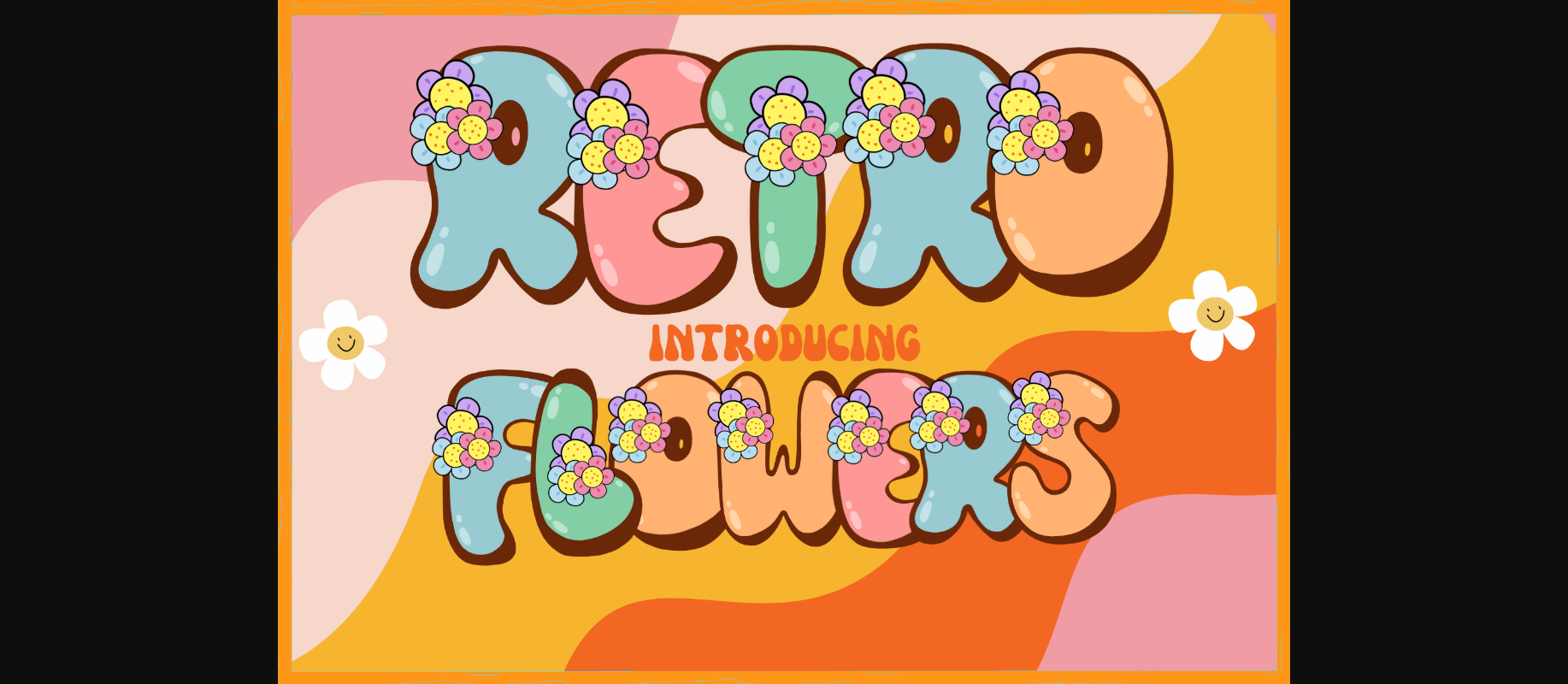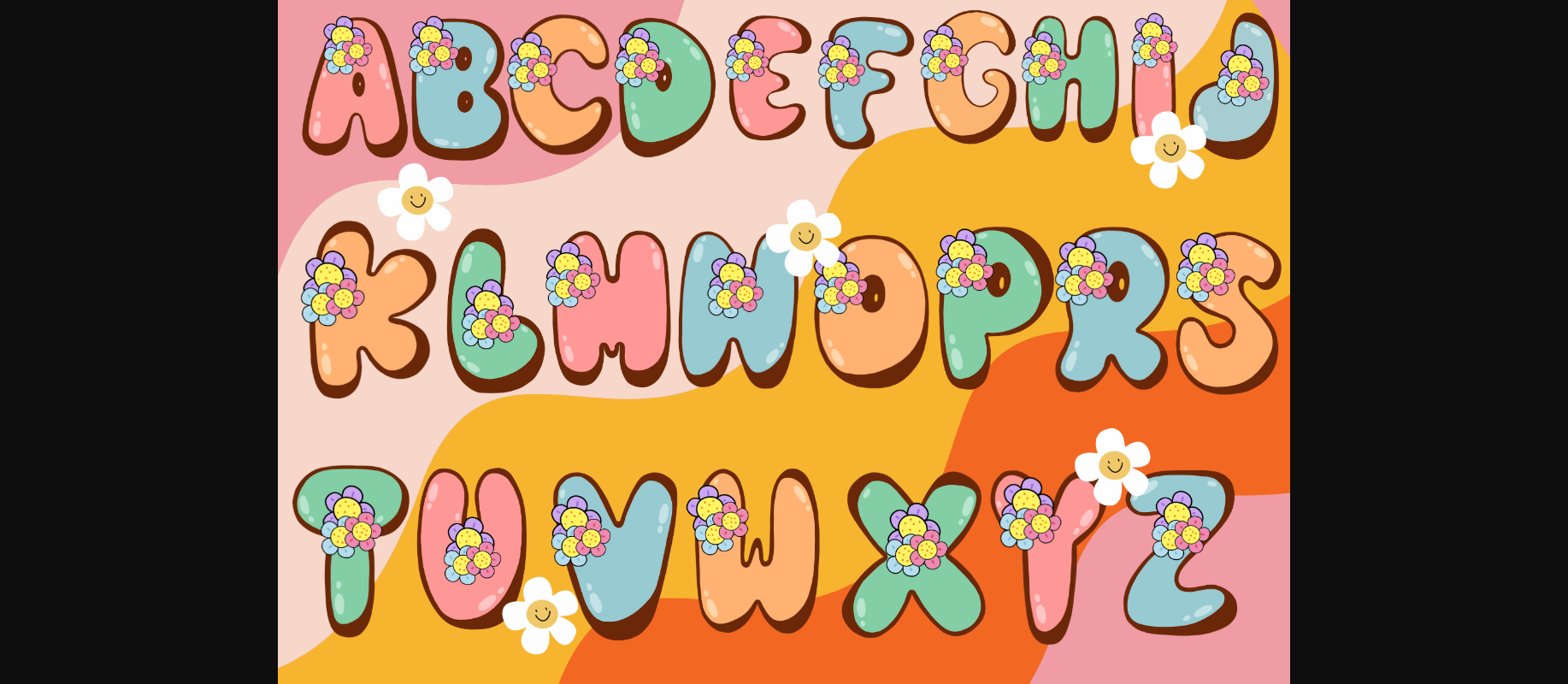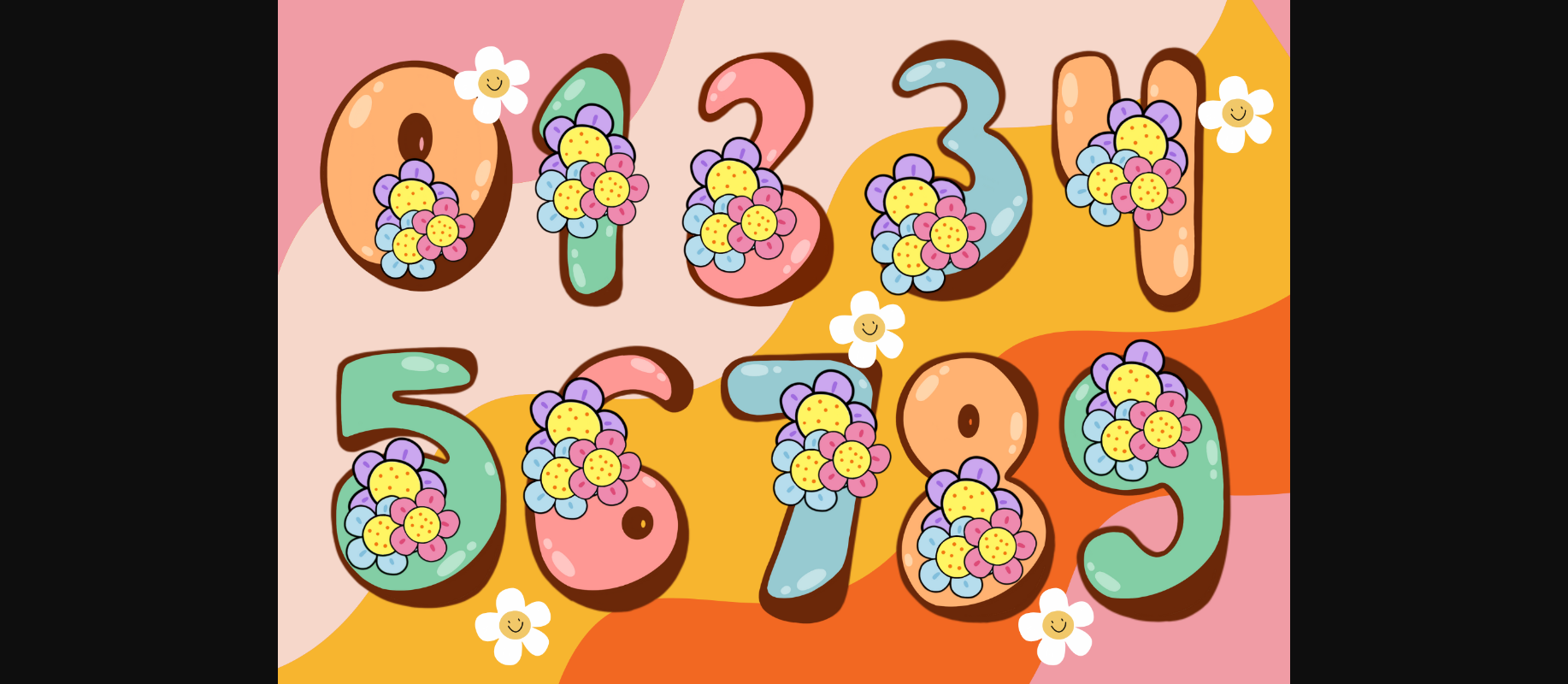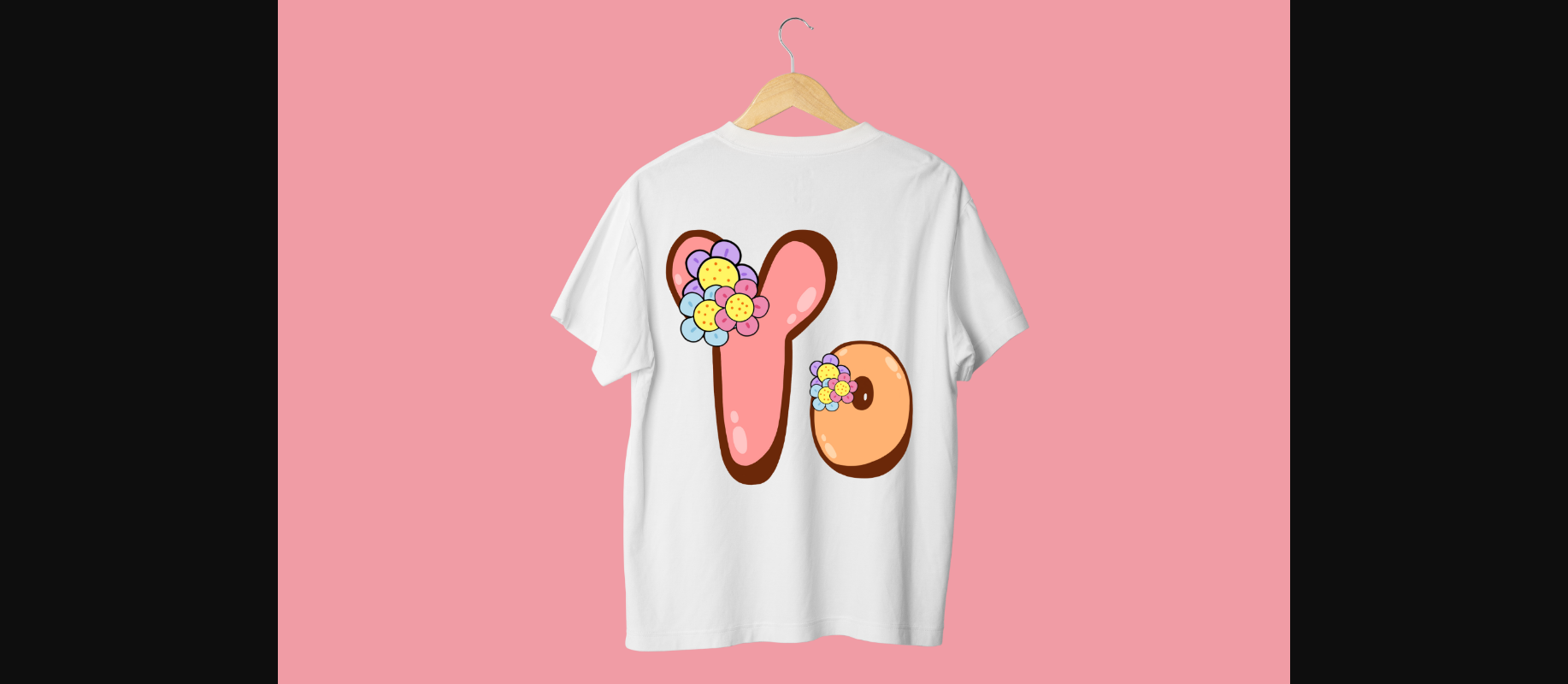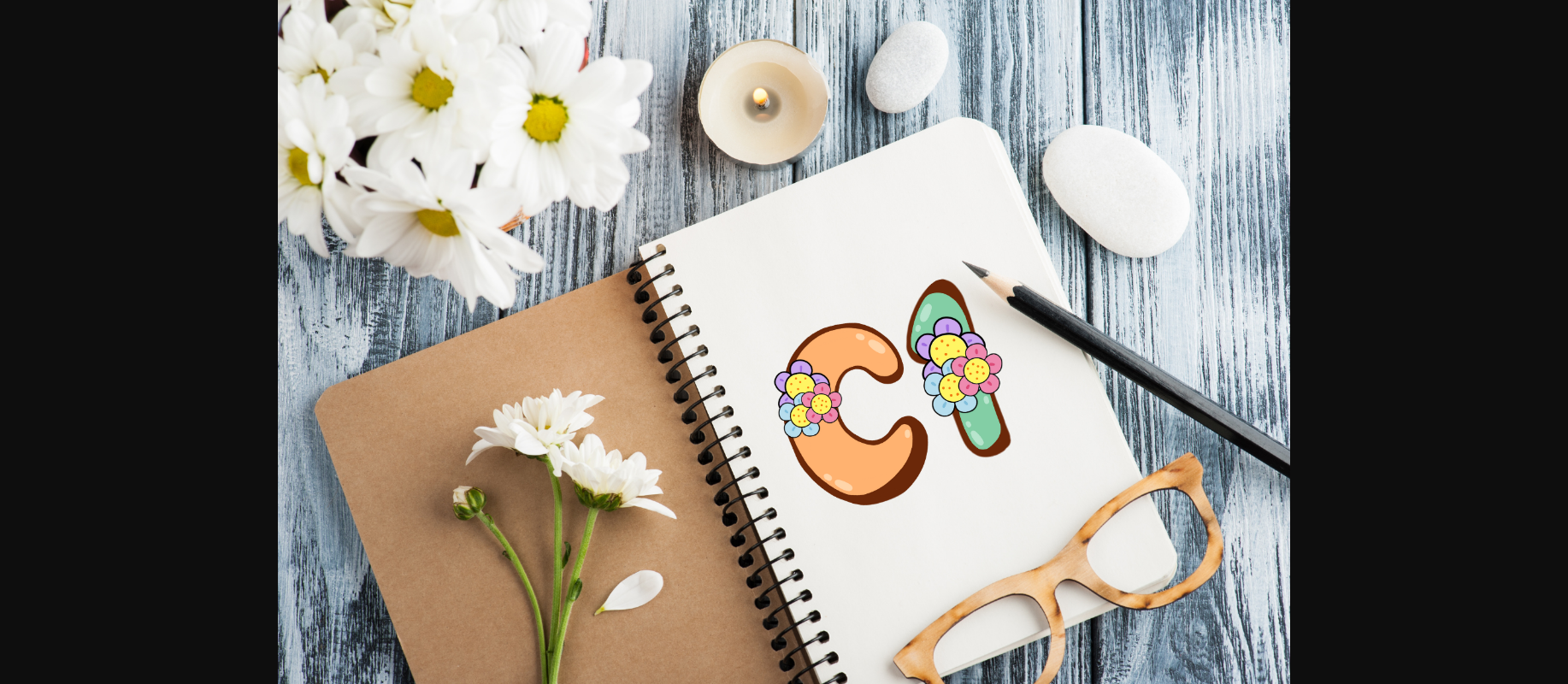
About Retro Flowers Font
Retro Flowers is a delightful and bubbly display font that exudes nostalgic charm. This font features whimsical, decorative flowers reminiscent of vintage designs, adding a touch of retro flair to any project. With its playful curves and unique floral accents, Retro Flowers brings a sense of joy and warmth to your creative endeavors, perfect for invitations, greeting cards, and other charming creations.